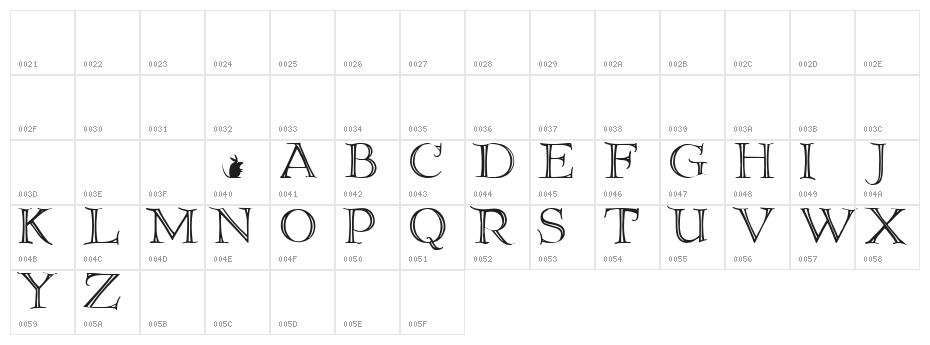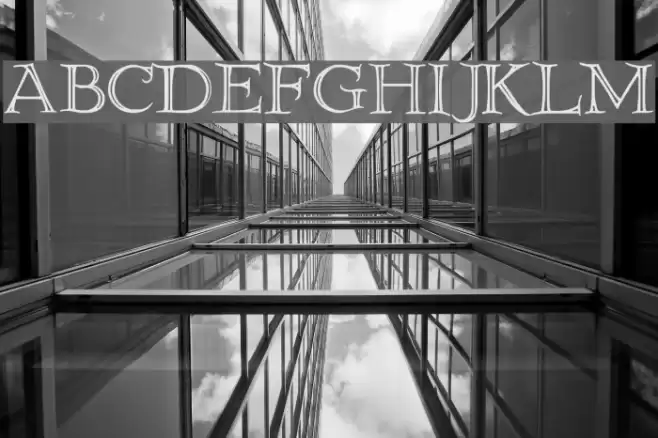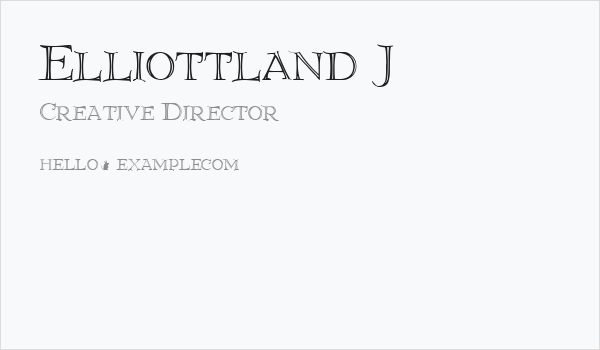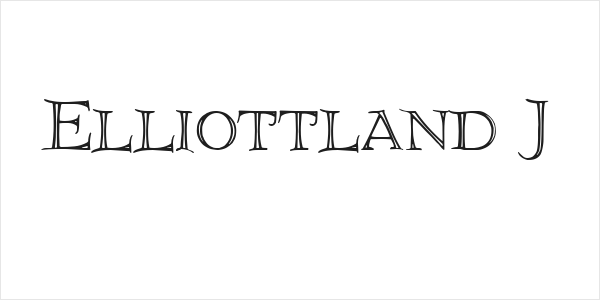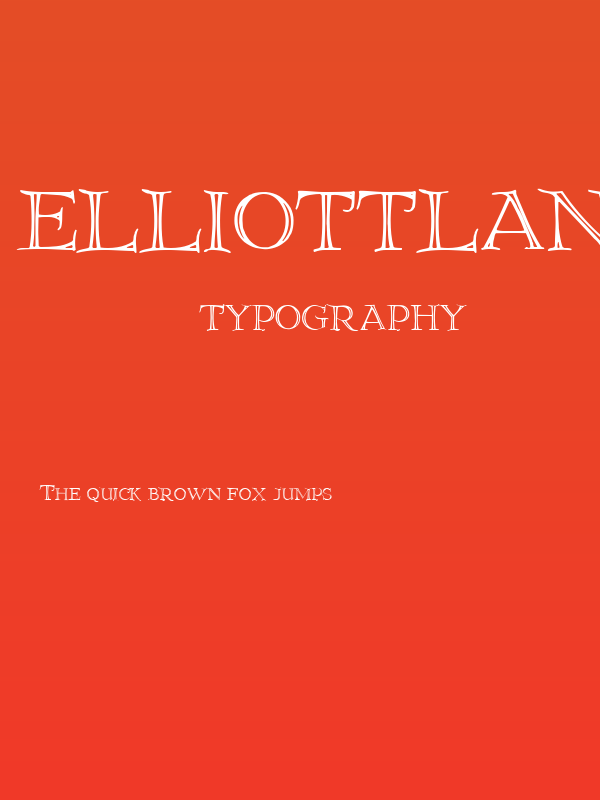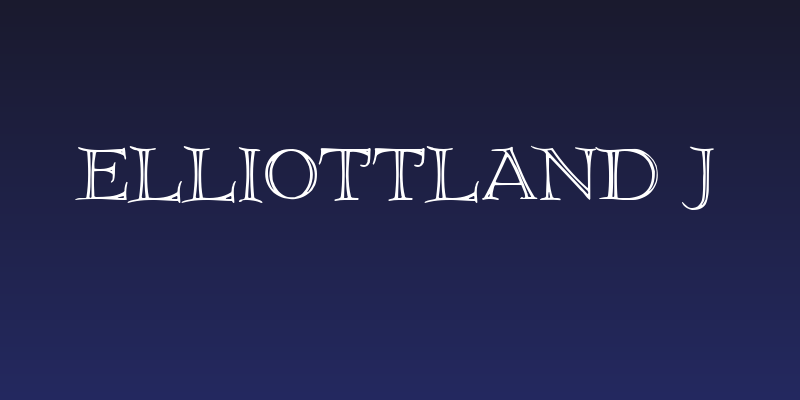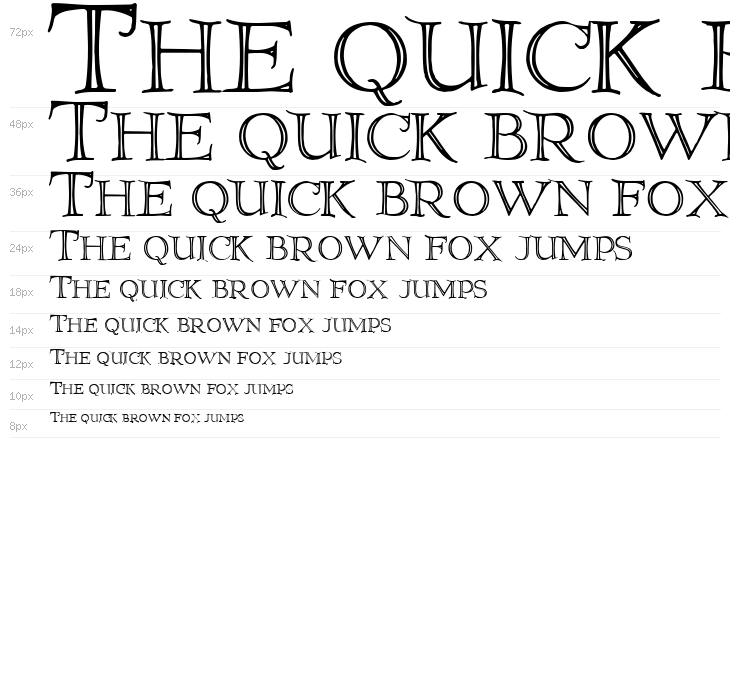
Elliottland J Font
Elliottland J Description
This font features a decorative and artistic style with intricate details on each character. The uppercase letters are characterized by unique flourishes and embellishments, giving them a distinct and elegant appearance. The strokes are moderately thick with slight variations, adding a touch of sophistication. The overall design is reminiscent of classic calligraphy, yet it maintains a modern twist with its clean lines and structured form. The font's decorative nature makes it suitable for projects that require a touch of elegance and creativity.
Overall StyleClassic, Decorative
Use CaseLogos, Headlines, Artistic projects
Proposed ProjectsIdeal for wedding invitations, luxury branding, book covers, and artistic posters.